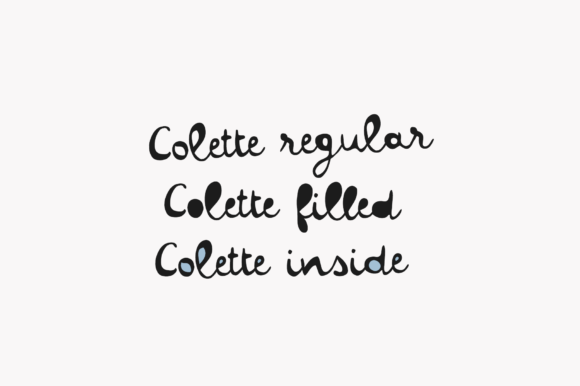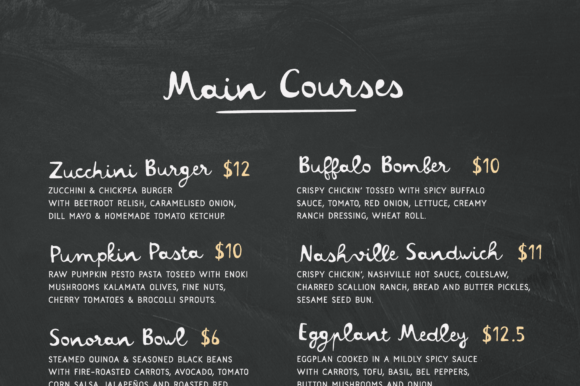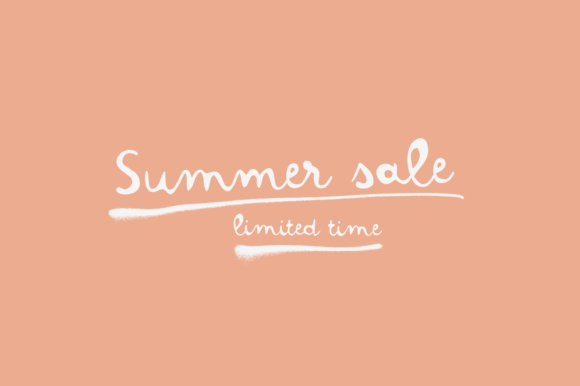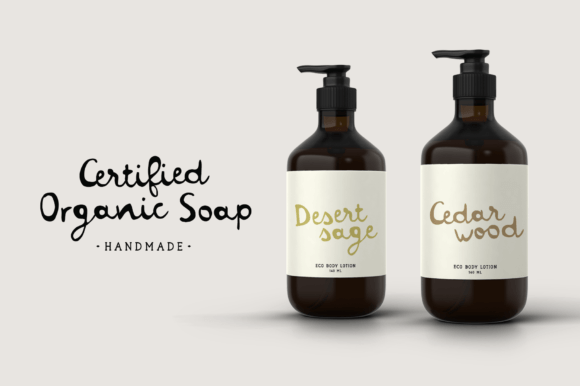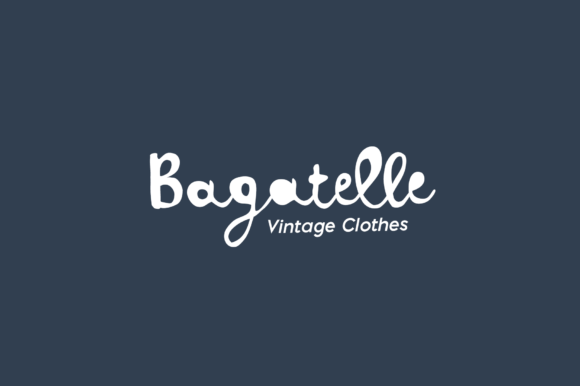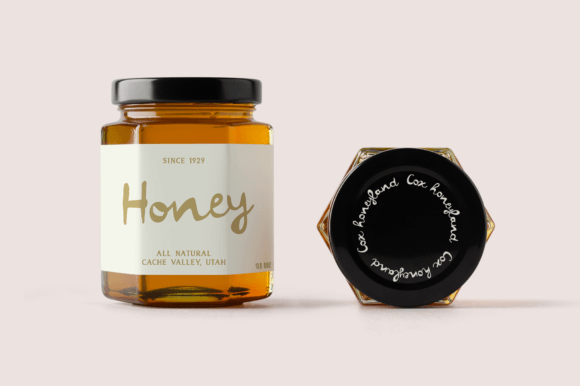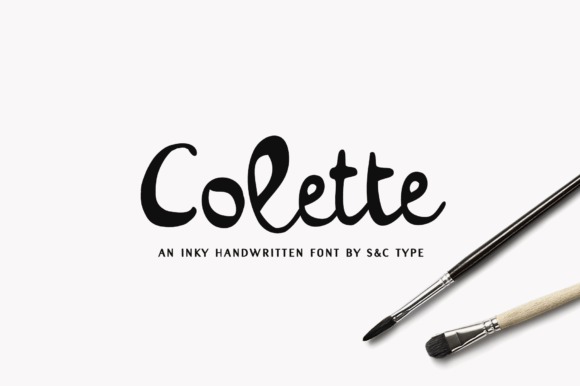
Colette Font: Elevate Your Designs with this Stunning Handwritten Script
Are you tired of using the same old fonts in your designs? Do you want to add a touch of elegance and sophistication to your projects? Look no further than the Colette font, a beautiful inky handwritten script font that’s sure to make a stunning impact. In this article, we’ll take a closer look at the Colette font, its features, and how you can use it to elevate your designs.
What is Colette Font?
Colette is an inky handwritten script font that was designed to be easy to read and easy to use. This finely balanced font is perfect for designers and crafters who want to add a personal touch to their projects. With its unique blend of elegance and playfulness, Colette is sure to stand out from the crowd.
Key Features of Colette Font
So, what makes Colette font so special? Here are some of its key features:
- Handwritten script: Colette is a handwritten script font that gives your designs a personal and unique touch.
- Ease of reading: Despite its elegant and cursive nature, Colette is surprisingly easy to read, making it perfect for body text and headings.
- Finely balanced: The font has a finely balanced design that ensures consistency and harmony in your designs.
- Inky texture: The inky texture of Colette gives it a distinctive look that’s perfect for designs that require a touch of elegance and sophistication.
How to Use Colette Font in Your Designs
Now that we’ve covered the features of Colette font, let’s talk about how you can use it in your designs. Here are some ideas to get you started:
- Wedding invitations: Colette is perfect for wedding invitations, thank you cards, and other wedding-related designs.
- Branding and packaging: Use Colette to create elegant and sophisticated branding and packaging designs that stand out from the crowd.
- Social media graphics: Add a touch of elegance to your social media graphics, such as Instagram posts and Facebook covers, with Colette.
- Blog and website designs: Use Colette as a heading font or body text font to add a touch of sophistication to your blog or website.
Tips for Using Colette Font Effectively
Here are some tips for using Colette font effectively in your designs:
- Pair it with a sans-serif font: Pair Colette with a sans-serif font, such as Arial or Helvetica, to create a nice contrast and add visual interest to your designs.
- Use it sparingly: While Colette is a beautiful font, it’s best to use it sparingly to avoid overwhelming your designs.
- Experiment with colors: Colette looks great in a variety of colors, so don’t be afraid to experiment and find the perfect color for your design.
In conclusion, Colette font is a stunning inky handwritten script font that’s perfect for designers and crafters who want to add a touch of elegance and sophistication to their projects. With its ease of reading, finely balanced design, and inky texture, Colette is sure to make a stunning impact in your designs. Whether you’re creating wedding invitations, branding and packaging designs, or social media graphics, Colette is a great choice. So why not give it a try and see the difference it can make in your designs?